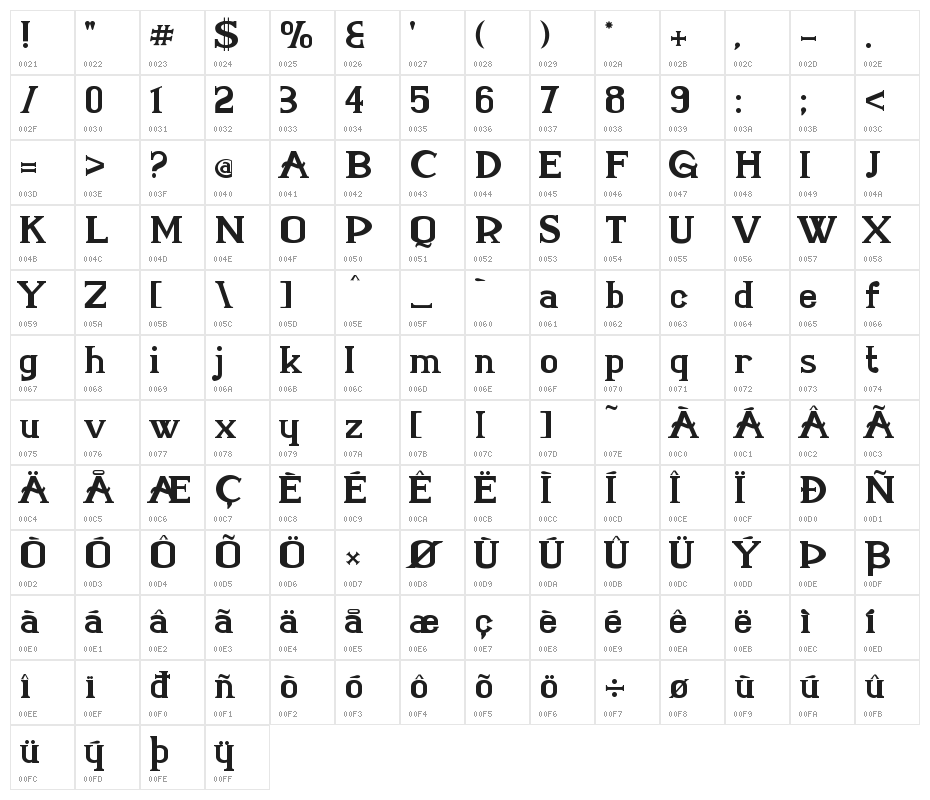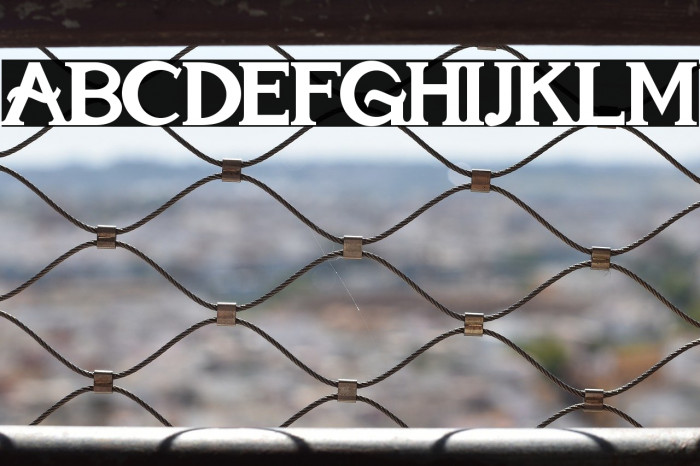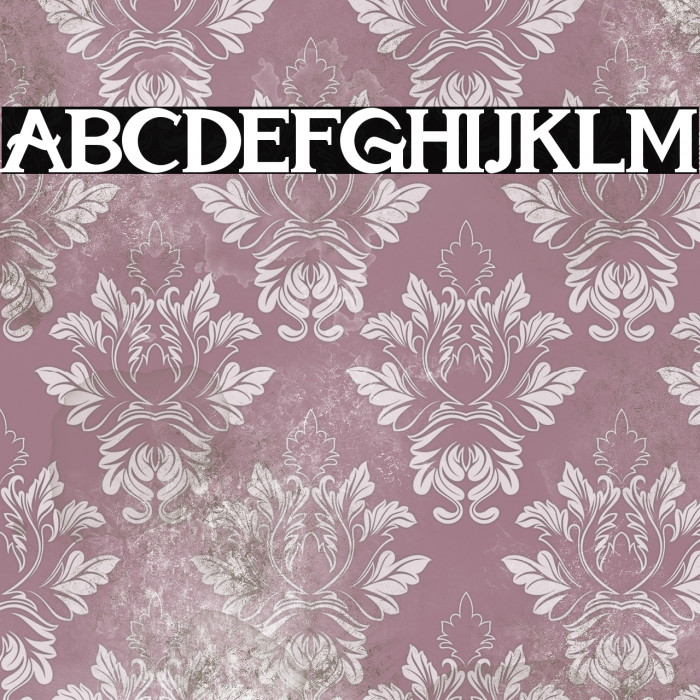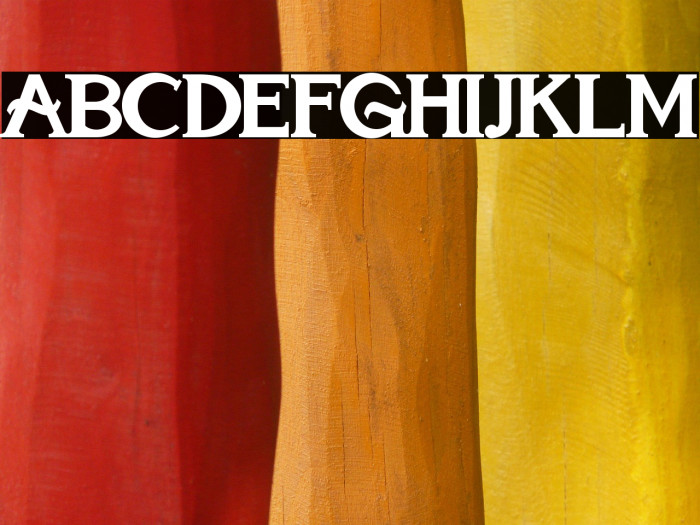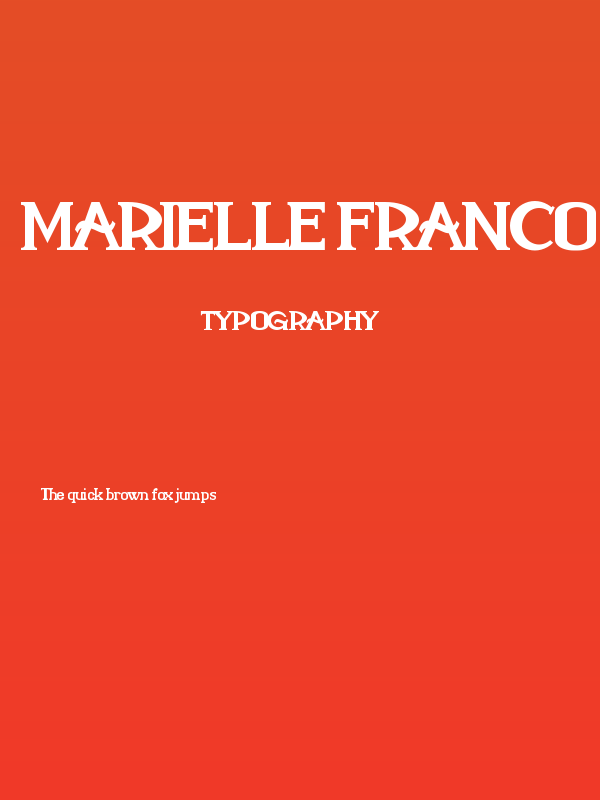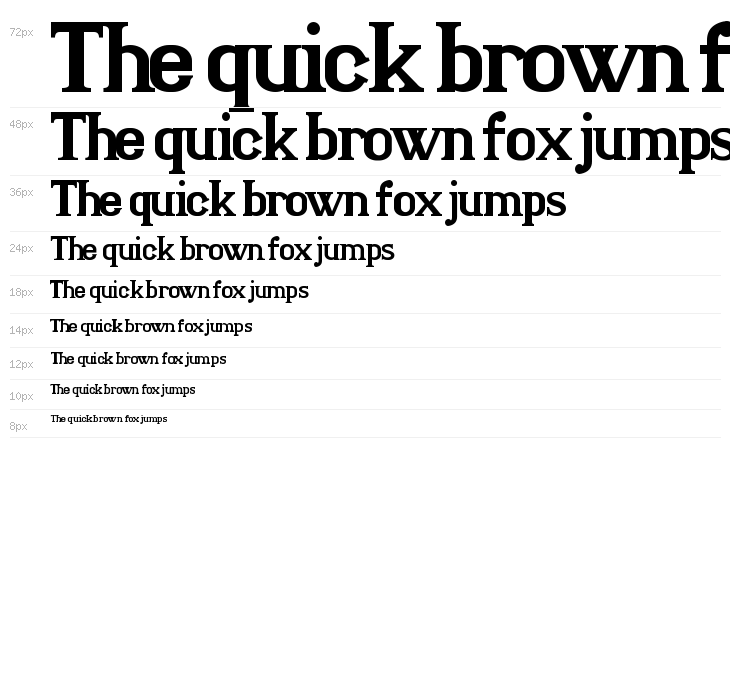
Marielle Franco Font
Marielle Franco Description
This font features a bold and striking design with a strong presence. The uppercase letters have a distinct, angular style with sharp serifs, giving them a commanding appearance. The lowercase letters maintain a similar boldness, with a slightly more rounded approach, providing a nice contrast to the uppercase. The numerals are equally bold and consistent with the overall style, ensuring readability and impact. Special characters are designed with the same attention to detail, making them stand out while remaining cohesive with the rest of the font. This font is ideal for making a statement, with its high contrast and strong lines.